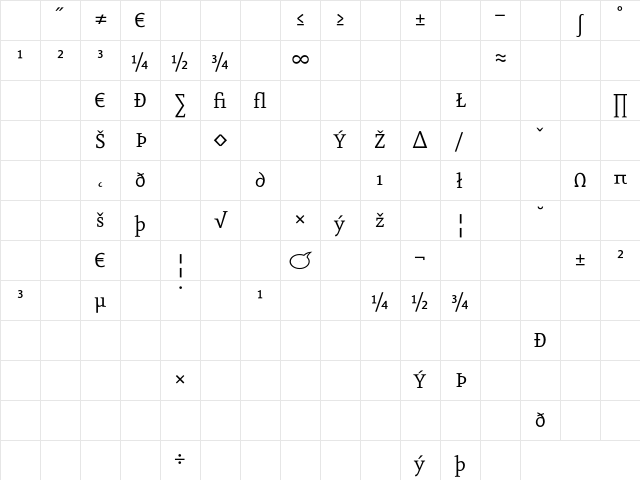
Eureka Regular Exp
Style: Regular Exp
Eureka Family
Eureka Regular Exp
Design Context for Eureka
Eureka is a composed and adaptable typeface that performs quietly and consistently across a wide range of design contexts.